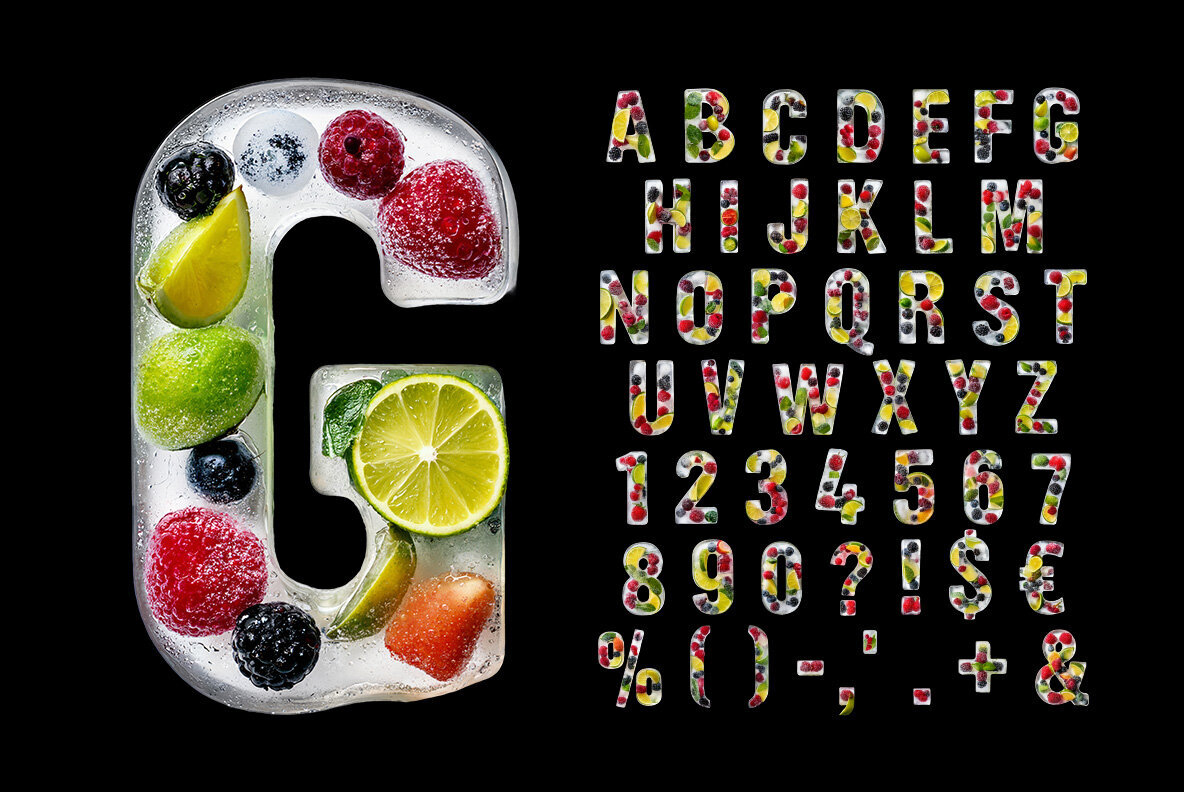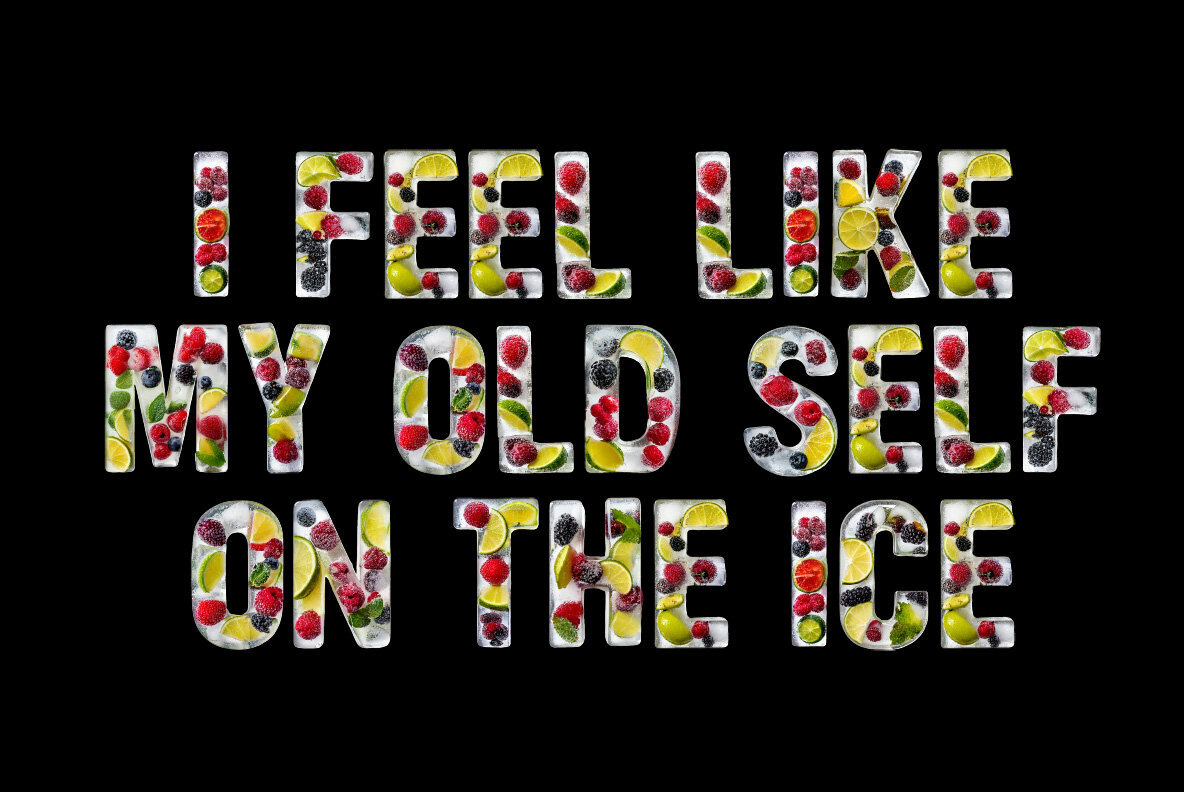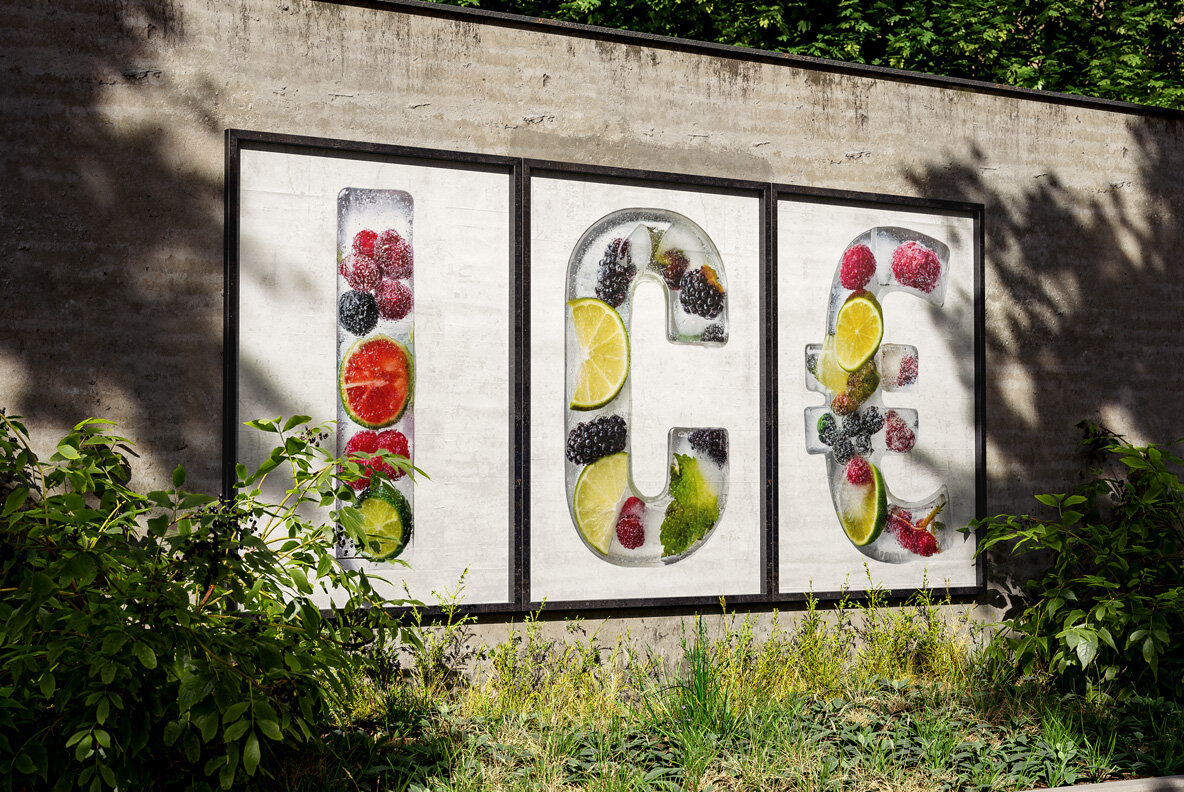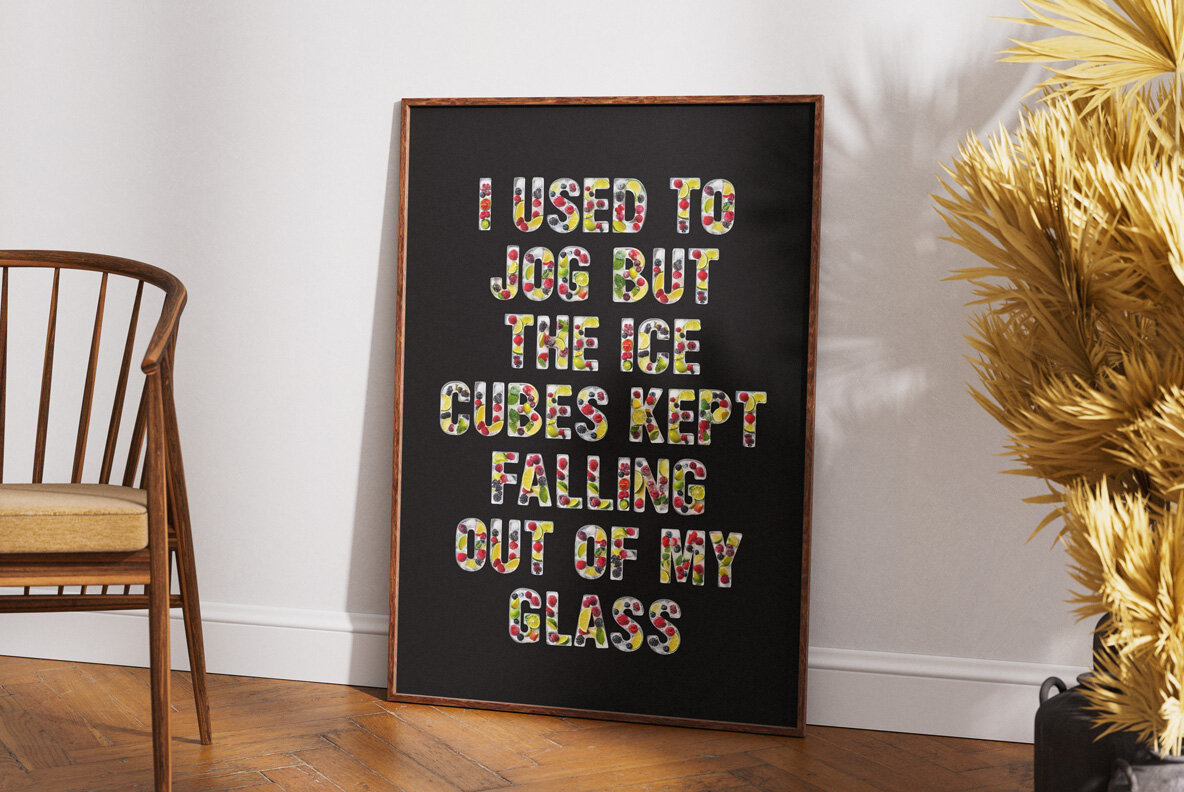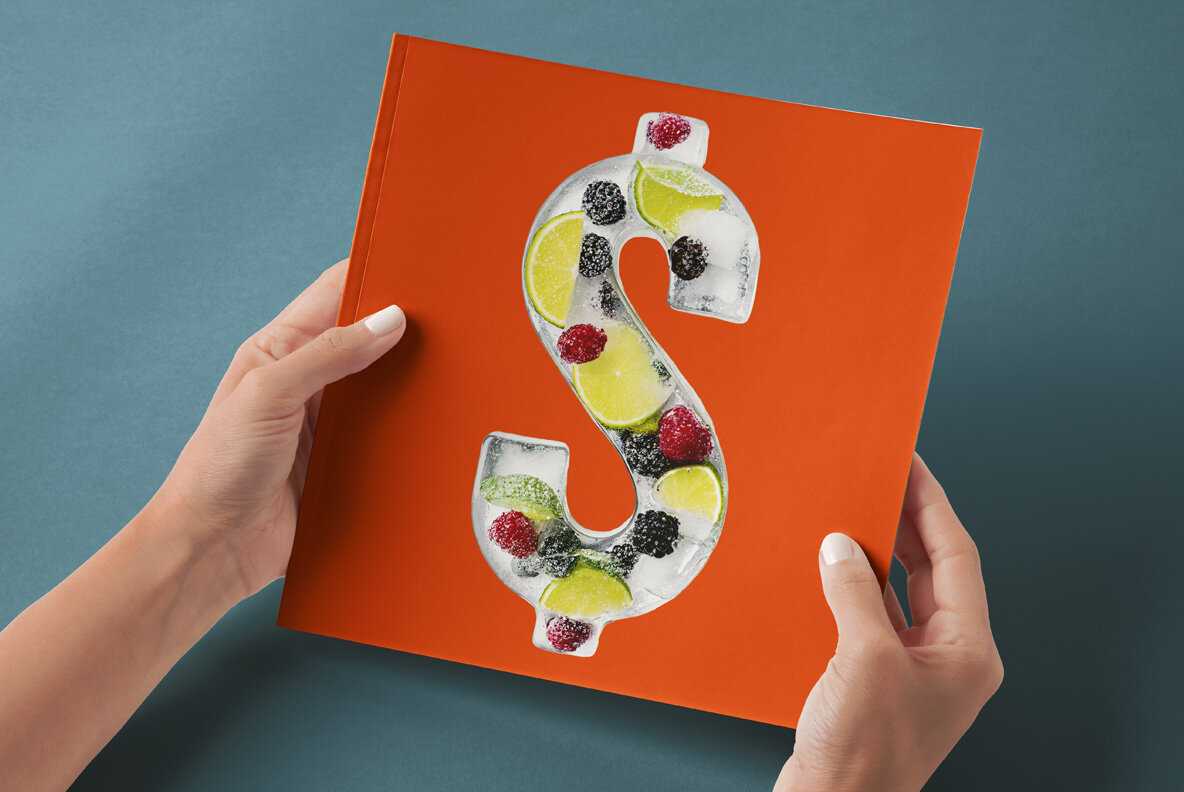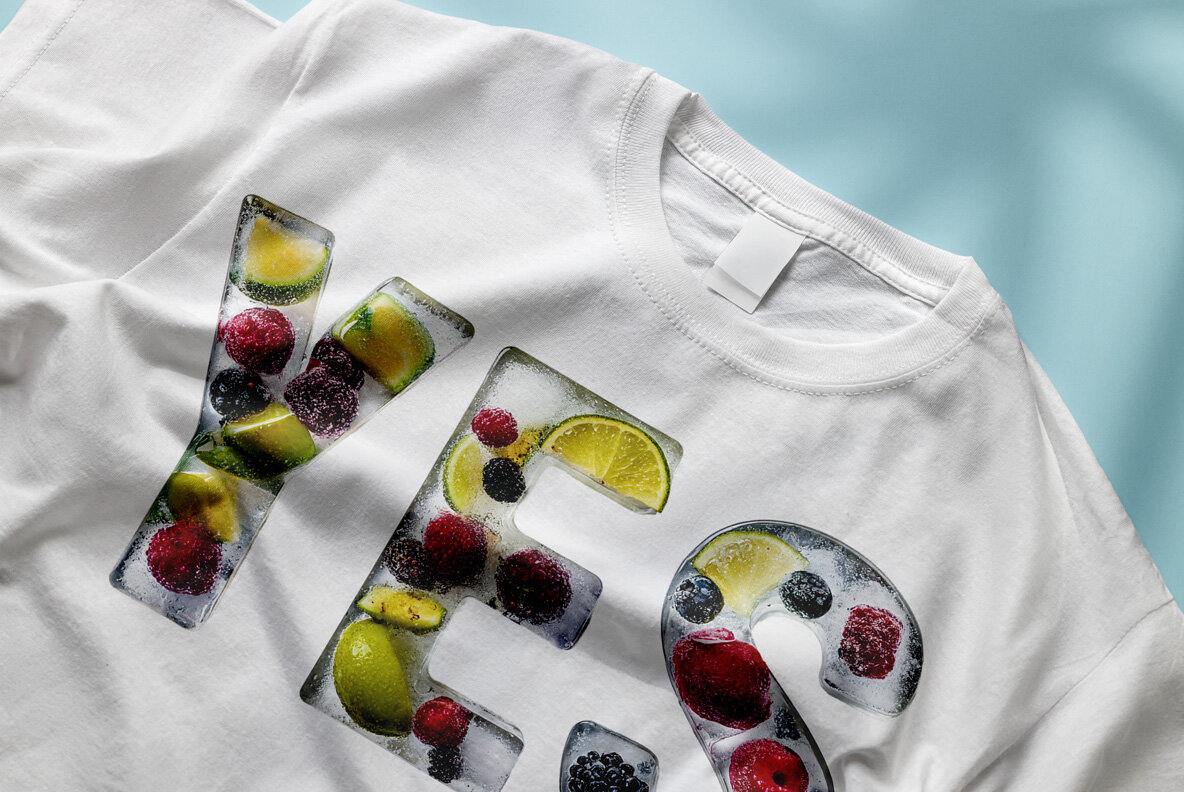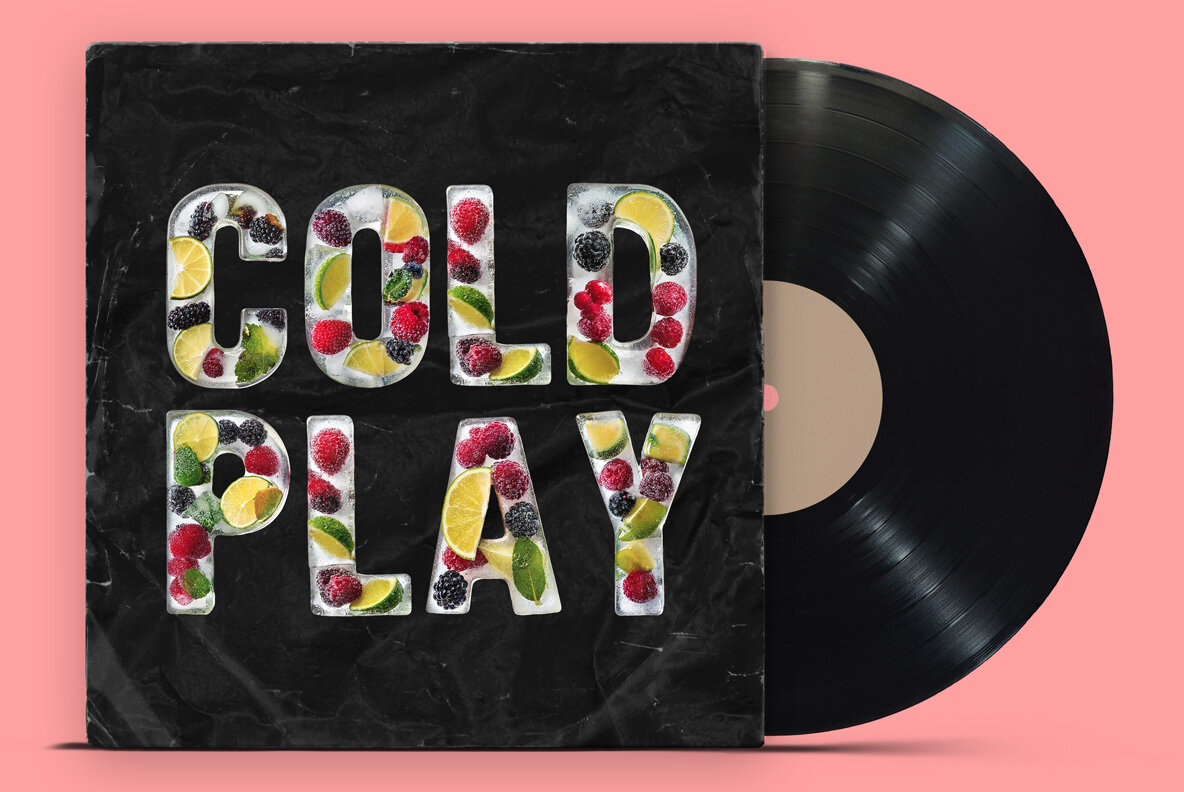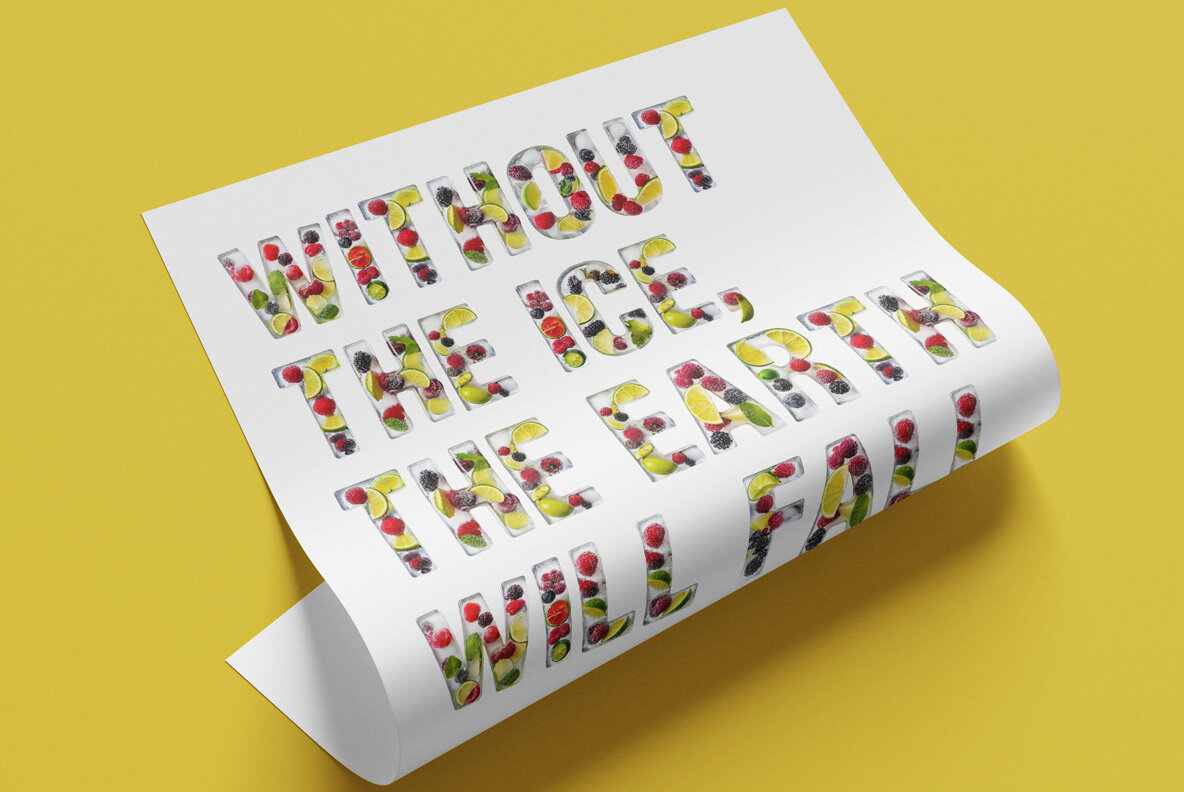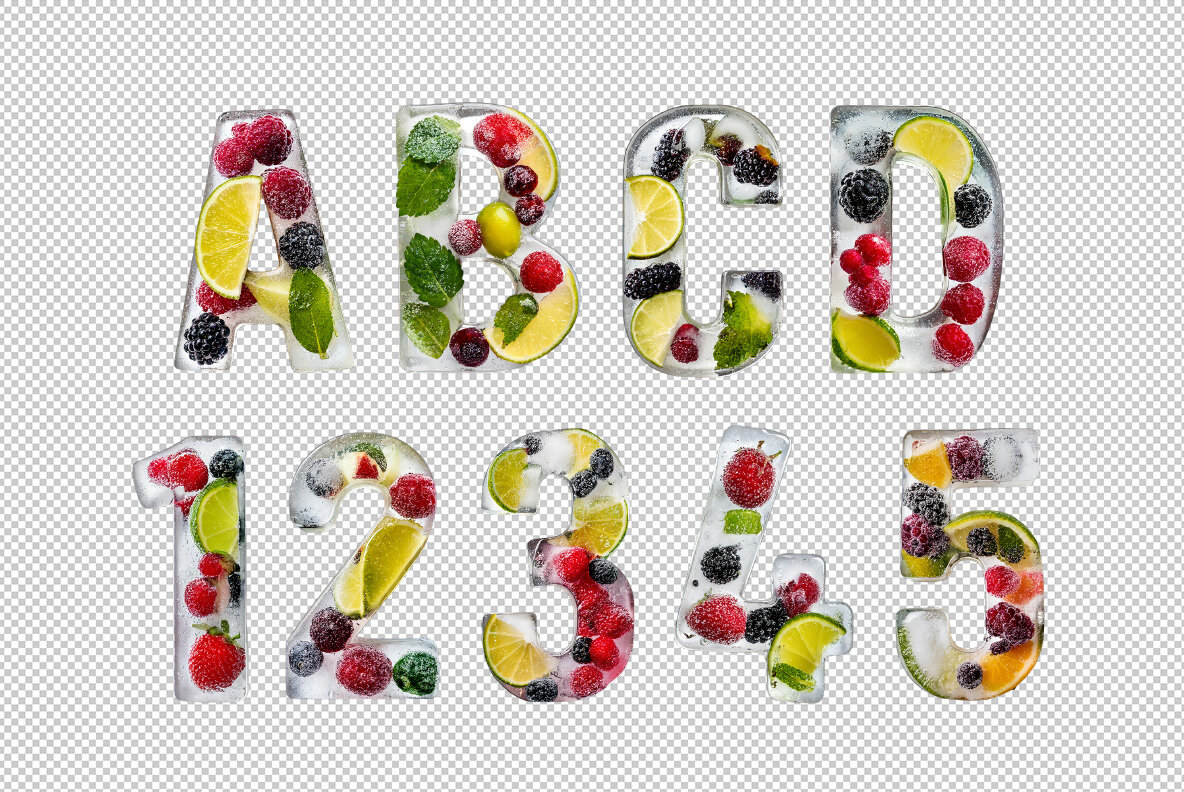
Berry Ice Cubes Font introduces a unique, high-definition typeface that adds vibrant color to your graphic design projects. This versatile OpenType font supports uppercase letters, numerals, and basic punctuation, offering creative freedom for your digital design needs. Each character is available as a color bitmap file, compatible with software like Photoshop, Illustrator, InDesign, and more, benefiting from the adoption of the OpenType-SVG industry standard. Whether creating stylized headlines or artistic presentations, this font ensures your visuals are both captivating and professional.